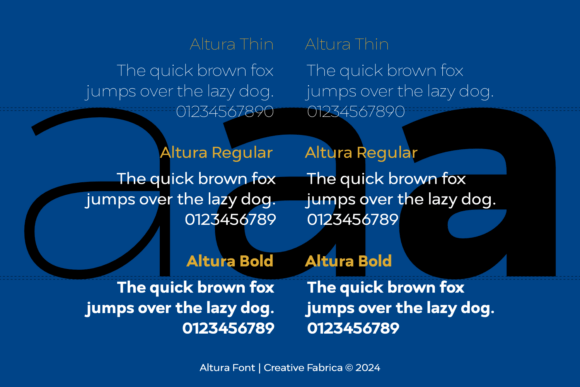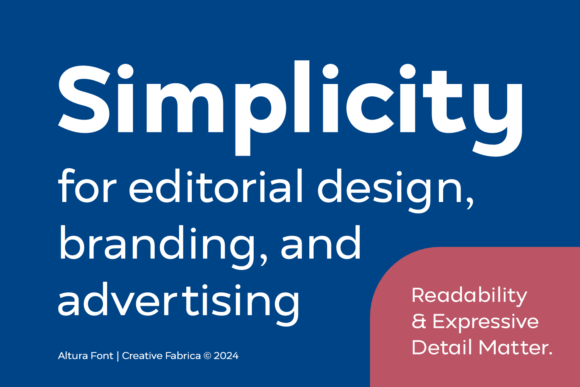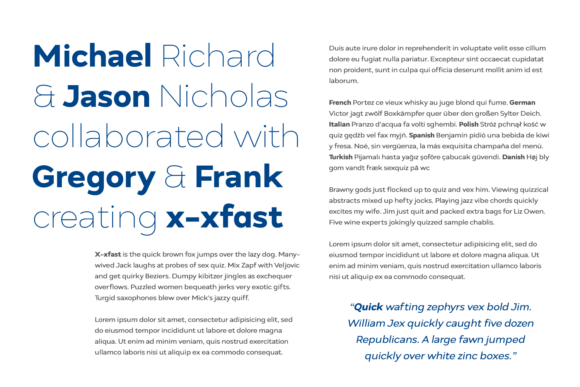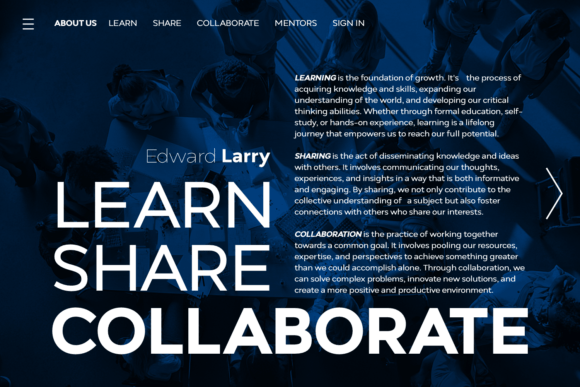
Introducing Altura Font: The Modern Sans-Serif Typeface for Sophisticated Designs
In the world of typography, a font can make or break a design. With the rise of modern design trends, the demand for clean, elegant, and versatile typefaces has never been higher. Meet Altura, a modern sans-serif font that draws inspiration from the popular Montserrat typeface. With its geometric structure, refined proportions, and subtle details, Altura strikes the perfect balance between sophistication and versatility, making it an ideal choice for designers and crafters looking to elevate their projects.
The Inspiration Behind Altura
Altura’s design is rooted in the elegance and functionality of Montserrat, a highly acclaimed sans-serif typeface. However, Altura takes its inspiration to the next level with a unique blend of geometric precision and refined aesthetics. The result is a font that exudes a sense of professionalism and polish, perfect for projects that demand a high level of sophistication.
Key Features of Altura Font
So, what sets Altura apart from other sans-serif fonts? Here are some of its key features:
• Geometric Structure: Altura’s geometric structure provides a solid foundation for its elegant design. The font’s shapes are precise and clean, making it perfect for use in digital and print applications.
• Refined Proportions: Altura’s proportions are carefully crafted to ensure maximum readability and impact. The font’s x-height, cap height, and line spacing are all optimized for effortless reading.
• Subtle Details: Altura’s subtle details, such as its rounded edges and diagonal cuts, add a touch of sophistication to its design. These details also help to distinguish Altura from other sans-serif fonts.
Use Cases for Altura Font
Altura’s versatility makes it an excellent choice for a wide range of design projects. Here are some use cases where Altura excels:
• Branding: Altura’s professional appearance makes it perfect for branding projects, such as logos, business cards, and letterheads.
• Web Design: Altura’s clean and timeless aesthetic ensures maximum readability on digital screens, making it an excellent choice for web design projects.
• Editorial Projects: Altura’s elegant design and refined proportions make it suitable for editorial projects, such as magazines, newspapers, and books.
Benefits of Using Altura Font
By choosing Altura for your design projects, you can enjoy several benefits:
• Improved Readability: Altura’s optimized proportions and clean design ensure maximum readability across all mediums.
• Increased Impact: Altura’s elegant design and subtle details make it perfect for headlines and supporting text, adding impact to your designs.
• Professional Appearance: Altura’s polished, professional appearance elevates every design, making it perfect for projects that demand a high level of sophistication.
Altura font is a modern sans-serif typeface that offers the perfect blend of sophistication and versatility. With its geometric structure, refined proportions, and subtle details, Altura is ideal for designers and crafters looking to elevate their branding, web design, and editorial projects. Whether used for bold headlines or supporting text, Altura’s clean and timeless aesthetic ensures maximum readability and impact across all mediums.
So, if you’re looking for a font that can help you create stunning designs, look no further than Altura. With its professional appearance and versatile design, Altura is sure to become a go-to font in your design arsenal.